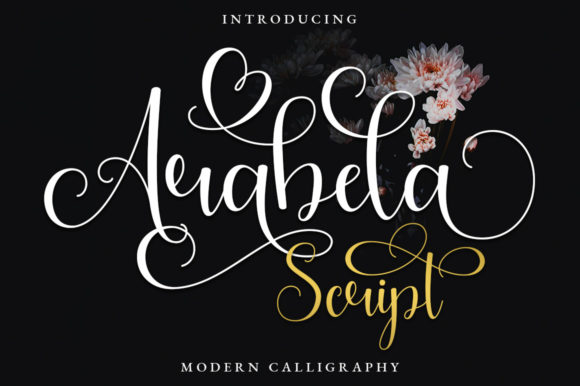
The Designer’s Delight: Arabela Script Font
I’ll never forget the time I was working on a luxury branding project for a high-end jewelry client. I had spent hours perfecting the logo design, but something was missing. The design felt elegant, but it lacked a certain spark. That’s when I stumbled upon the Arabela Script Font. It was love at first sight! ✨ The stylish and incredibly elegant script font added a touch of sophistication to the design, and I knew I had found the perfect fit.
• ✨ Elegant and stylish script font perfect for luxury designs
• ✅ PUA encoded for easy access to glyphs and ligatures
• 🌟 Highly legible, even at small font sizes
• 🎨 Versatile and can be used for a variety of design projects, from branding to packaging
While Arabela Script Font is an amazing font, there are a few things to keep in mind: 🤔
• ⚠️ Some users may find the font a bit too ornate for certain design projects
• ⚠️ May not be suitable for body text, as it’s best used for headlines and titles
The Designer Inspiration Behind Arabela Script Font
The story behind Arabela Script Font is one of passion and creativity. The font was designed by a team of skilled typographers who wanted to create a font that would add a touch of elegance to any design project. Inspired by traditional calligraphy, Arabela Script Font was crafted to be both beautiful and functional. 💫
Q: What is PUA encoding, and how does it benefit the user?
A: PUA (Private Use Area) encoding allows users to access glyphs and ligatures easily, making it simple to use the font in various design projects.
Q: Is Arabela Script Font suitable for body text?
A: While Arabela Script Font is highly legible, it’s best used for headlines and titles. For body text, a more traditional font may be more suitable.